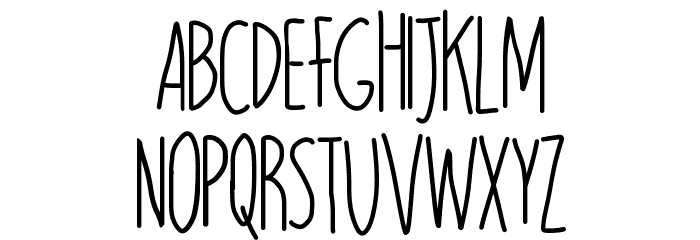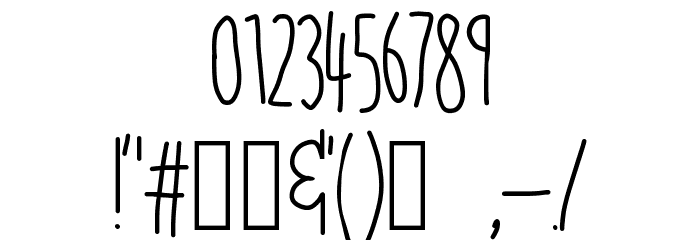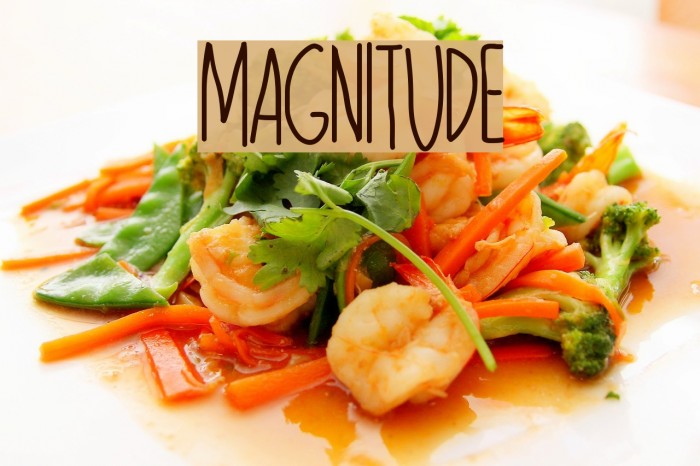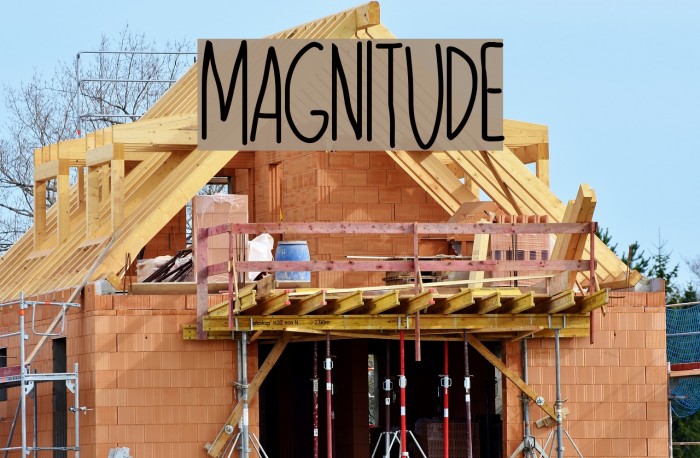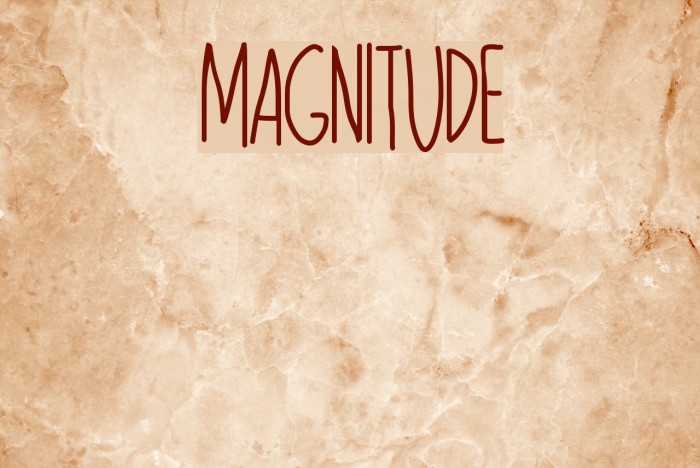
MAGNITUDE Font
This font features a playful and informal handwritten style, characterized by its tall and narrow letterforms. The strokes are consistent in width, giving it a uniform appearance, yet the slight irregularities in the curves and angles add a touch of whimsy and personality. The uppercase and lowercase letters maintain a cohesive look, with rounded edges and a slight slant that enhances its casual feel. Numbers and special characters are designed to match the overall aesthetic, making it versatile for various applications. The font's simplicity and charm make it suitable for creative projects that require a friendly and approachable tone.
A playful, handwritten font with tall, narrow letters and a casual, friendly style.
- Proposed Projects: Ideal for greeting cards, children's books, playful branding, and social media graphics.
- Category: Handwritten
- Overall Style: Casual
- Use Case: Headlines, Logos, Informal Text